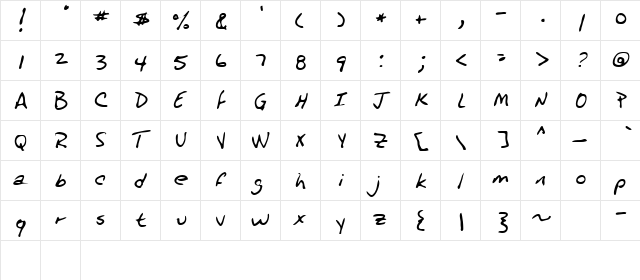
Plano Regular
Design Context for Plano Typeface
Plano is a composed and adaptable typeface that performs quietly and consistently across a wide range of design contexts.